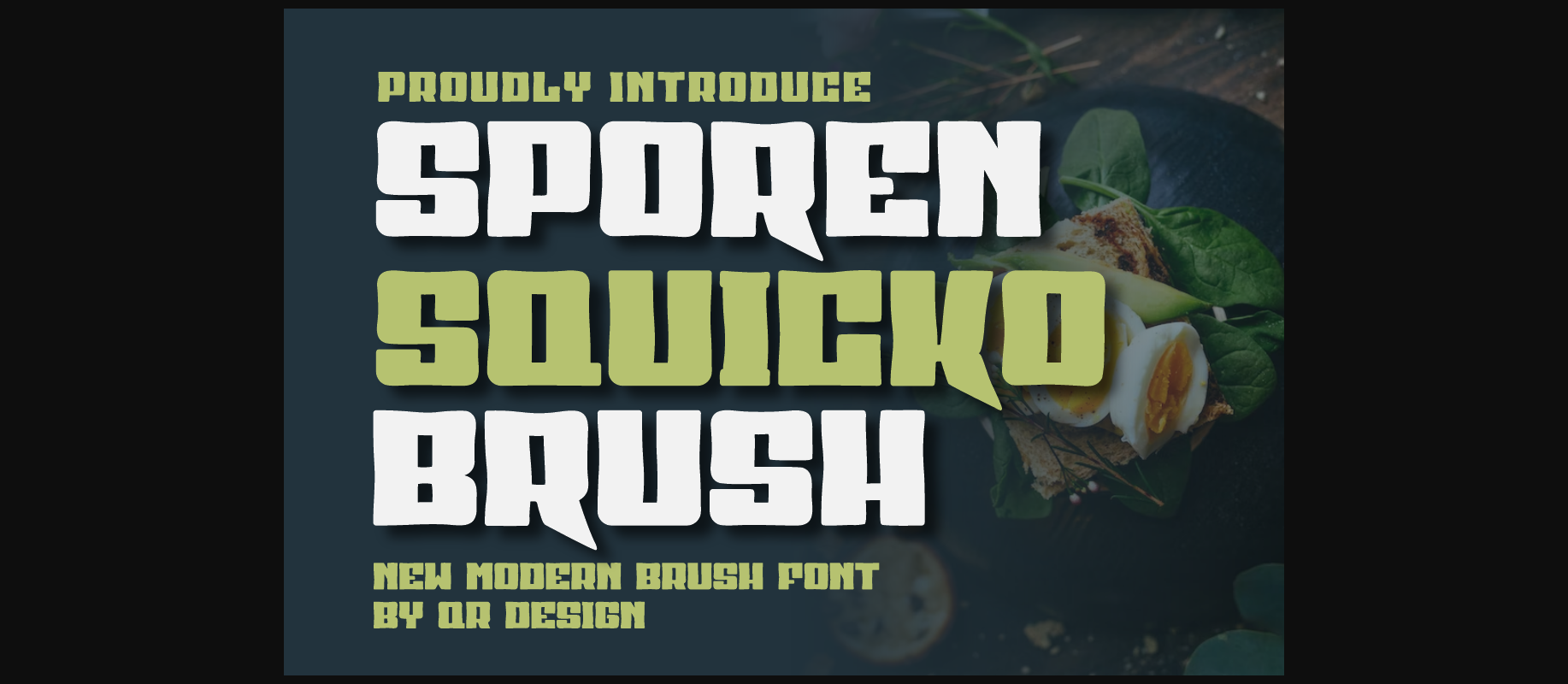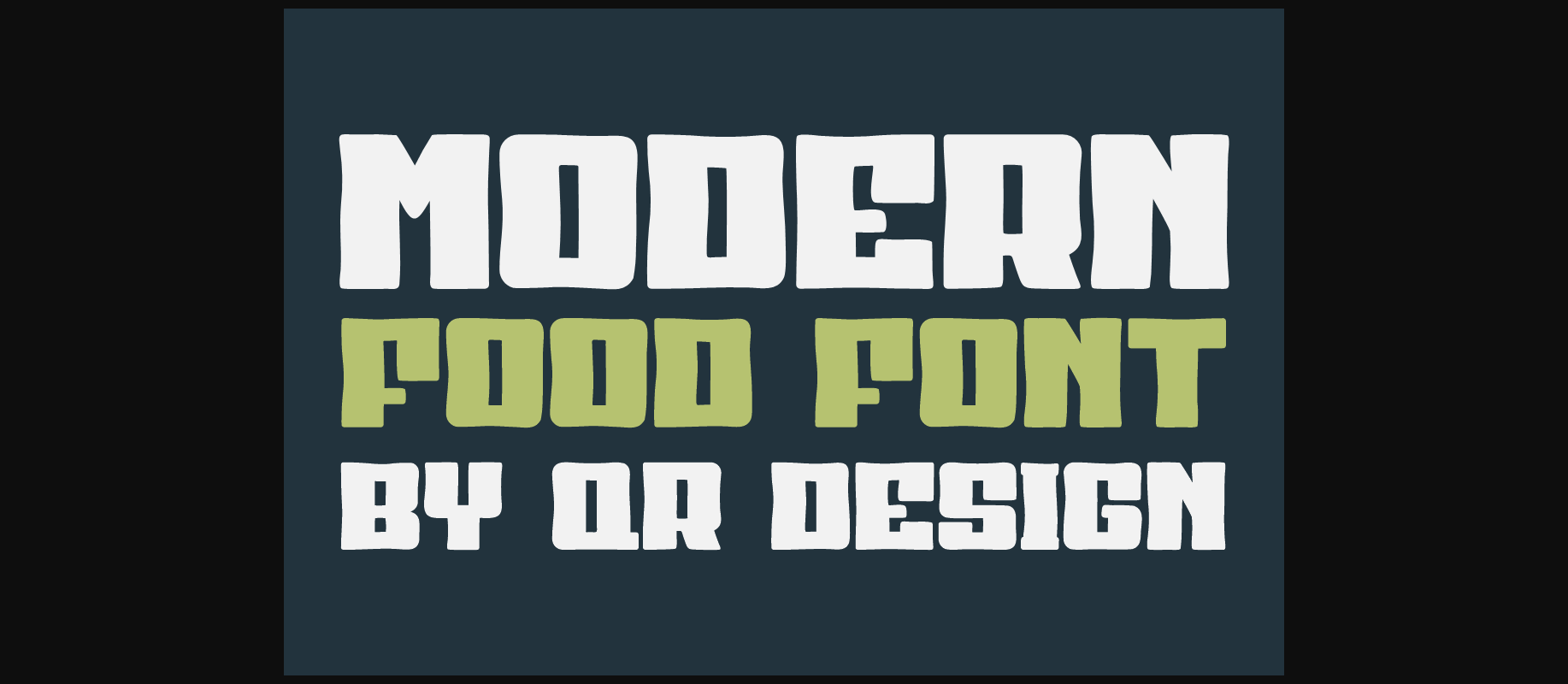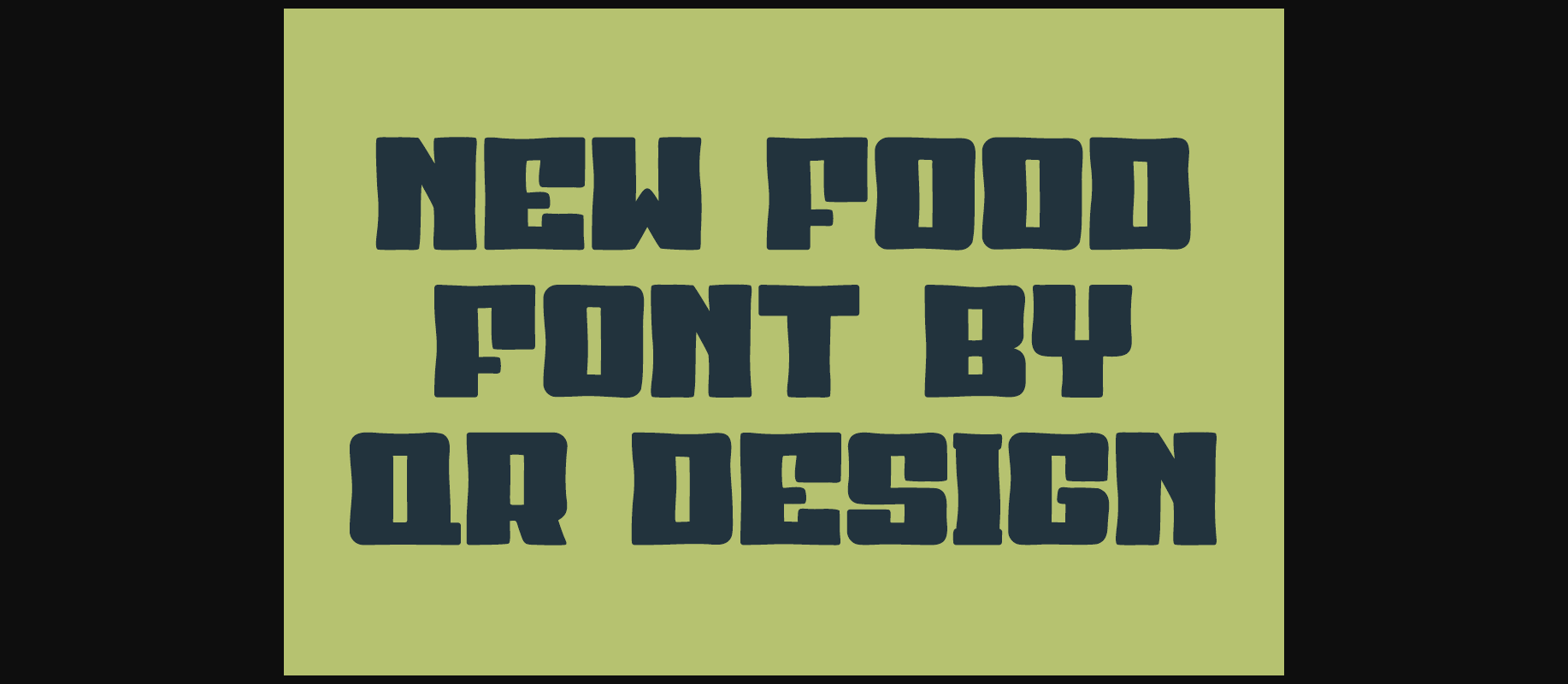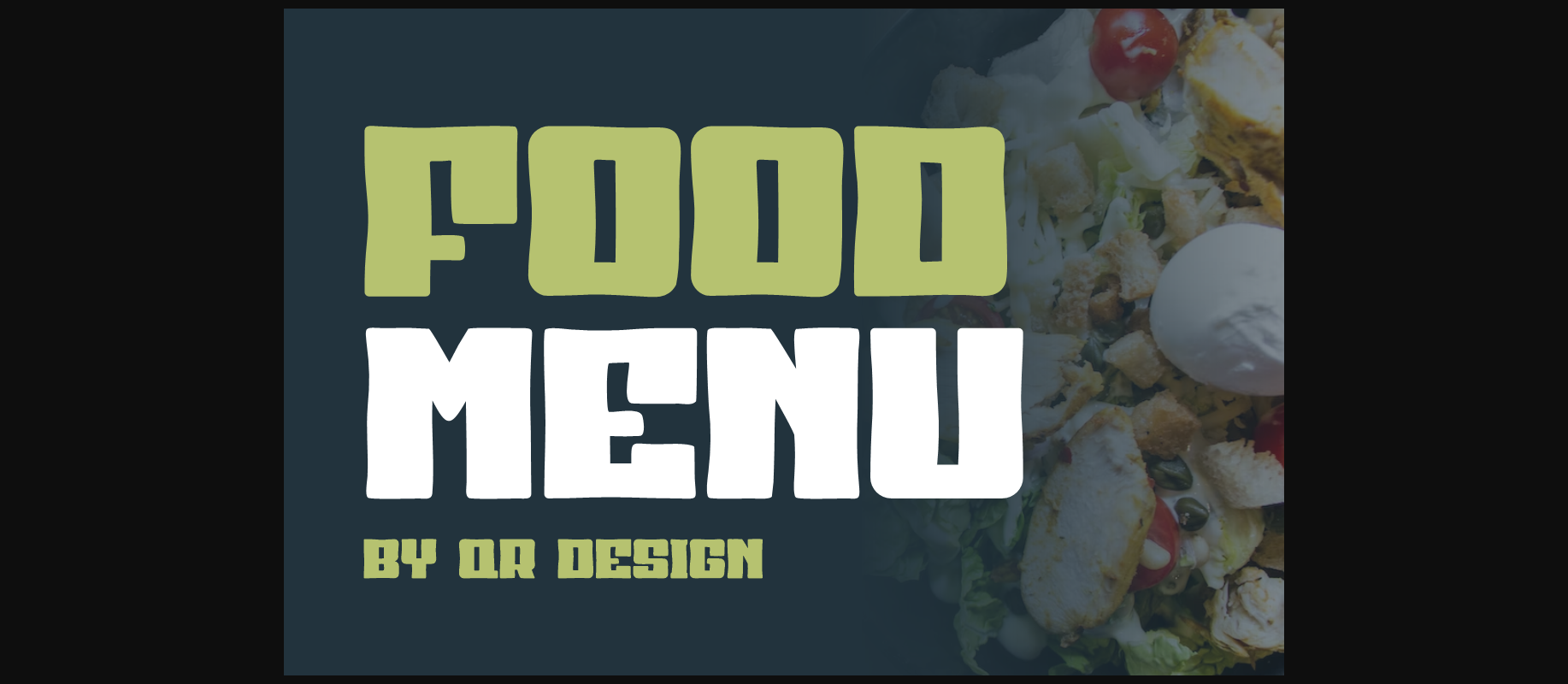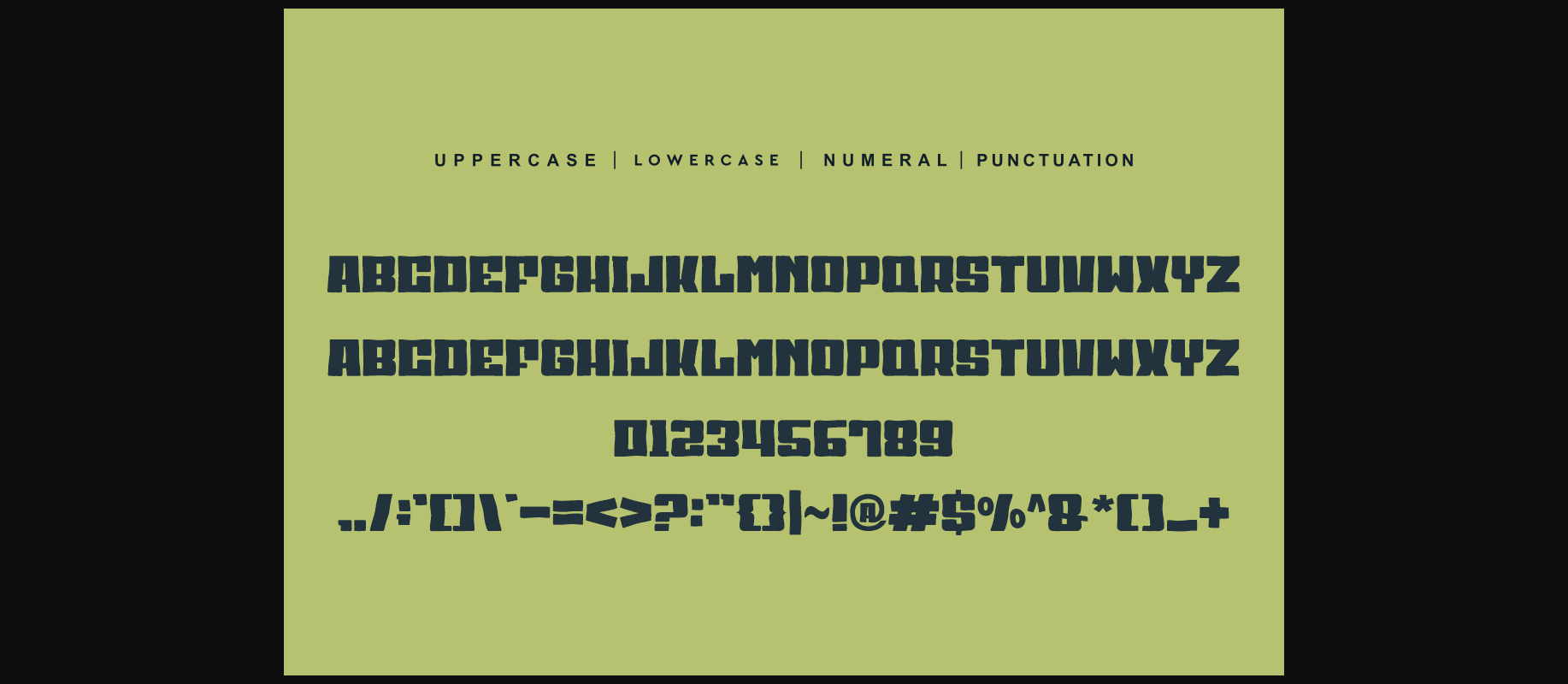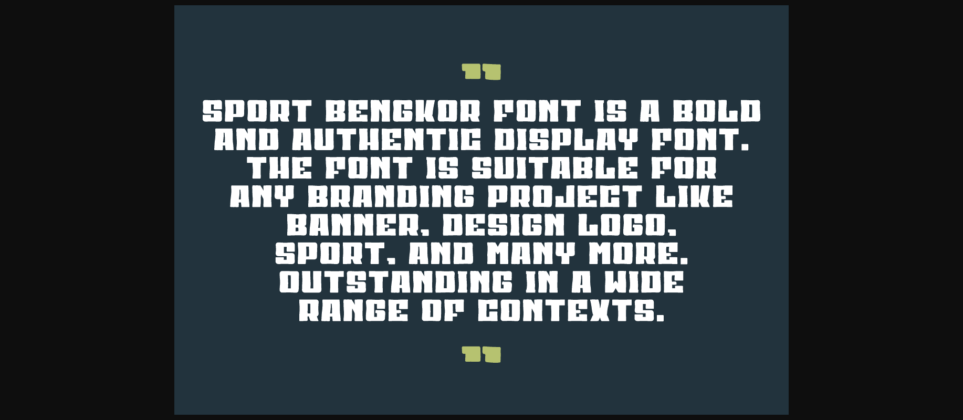
About Sporen Squicko Brush Font
Sporen Squicko Brush is a bold and authentic display font.
The font is suitable for any branding project like logo, t-shirt printing, food, and many more.